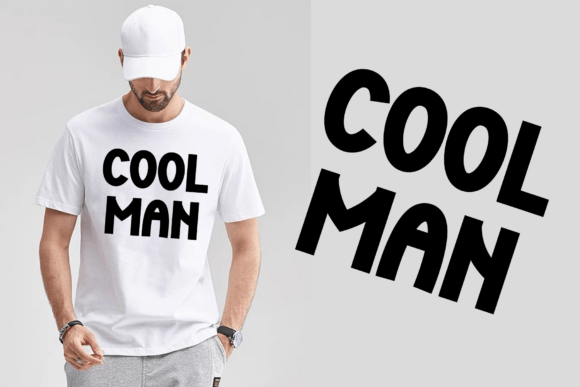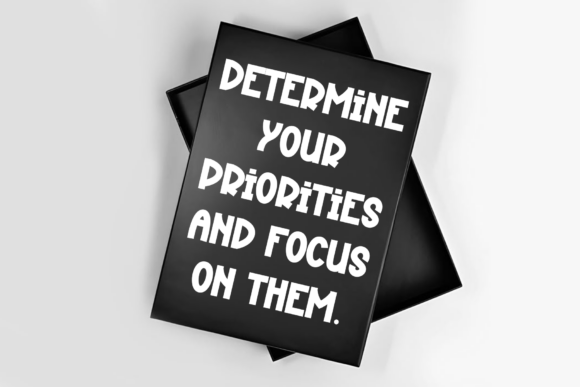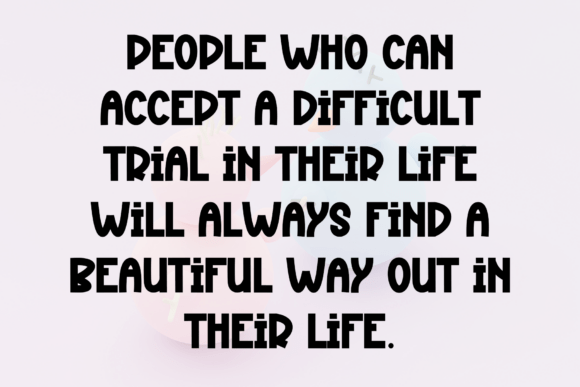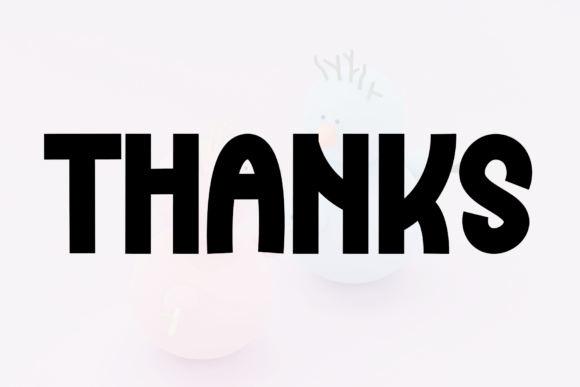
The Joy of Cartoon Family Font
Remember the thrill of creating a comic book or drawing a colorful poster as a child? The excitement of bringing your imagination to life with bold lines and playful characters? For designers looking to tap into that same sense of wonder, the Cartoon Family Font is a game-changer.
Crafted specifically for kid-centric designs, games, comic books, and playful branding, this bold and energetic display font is designed to bring instant character to any project. With its thick, rounded forms and sharp angles, the Cartoon Family Font is the perfect choice for headlines and digital illustrations. Its exaggerated accents and strong color separation make it a valuable tool for designers looking to add a touch of whimsy to their work.
Key Features of Cartoon Family Font
- Font Family: The Cartoon Family Font is a unique, hand-drawn font family consisting of multiple font styles, including bold, italic, and regular.
- Unique Characteristics: The Cartoon Family Font features playful, hand-drawn illustrations of family members, including parents, children, and pets, adding a touch of whimsy and personality to any design.
- Number of Glyphs: The font family includes a vast array of glyphs, including uppercase and lowercase letters, numbers, punctuation marks, and special characters, making it suitable for a wide range of applications.
Cartoon Family Font Review
Overall, I think the Cartoon Family Font is a fun and playful option for those who need a lighthearted font for their designs. ✨ Here are some things that work well:
- Unique character: The font has a distinct, cartoonish feel that can add a lot of personality to your designs.
- Fun to read: The font’s bold lines and rounded edges make it easy to read, even at small font sizes.
- Highly customizable: The font includes a wide range of glyphs, making it easy to create custom logos or designs.
- Not ideal for formal designs: The font’s playful feel may not be suitable for more formal or professional designs.
- Limited font weights: While the font includes a range of glyphs, it only comes in a few different font weights, which can limit its versatility.
- May not be as readable on smaller screens: The font’s bold lines and rounded edges can make it harder to read on smaller screens or at very small font sizes.
Overall, I think the Cartoon Family Font is a great option for those who need a fun and playful font for their designs. While it may not be suitable for every project, it’s definitely worth considering for designs that need a little extra personality.
The Cartoon Family Font is ideal for creating playful, whimsical designs and graphics, such as:
– Children’s book illustrations
– Cartoon-style logos and branding
– Educational materials and worksheets
To get the most out of the Cartoon Family Font, try experimenting with different font sizes, colors, and combinations of fonts to create unique and engaging designs.